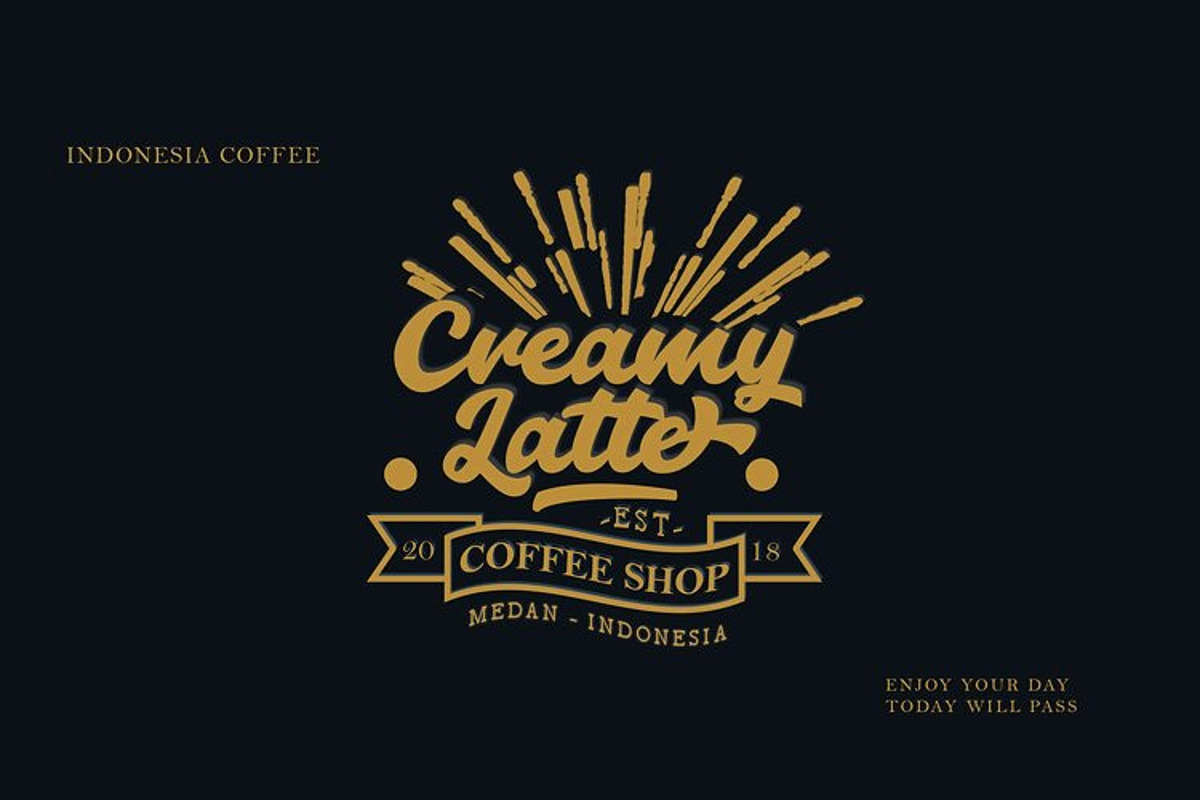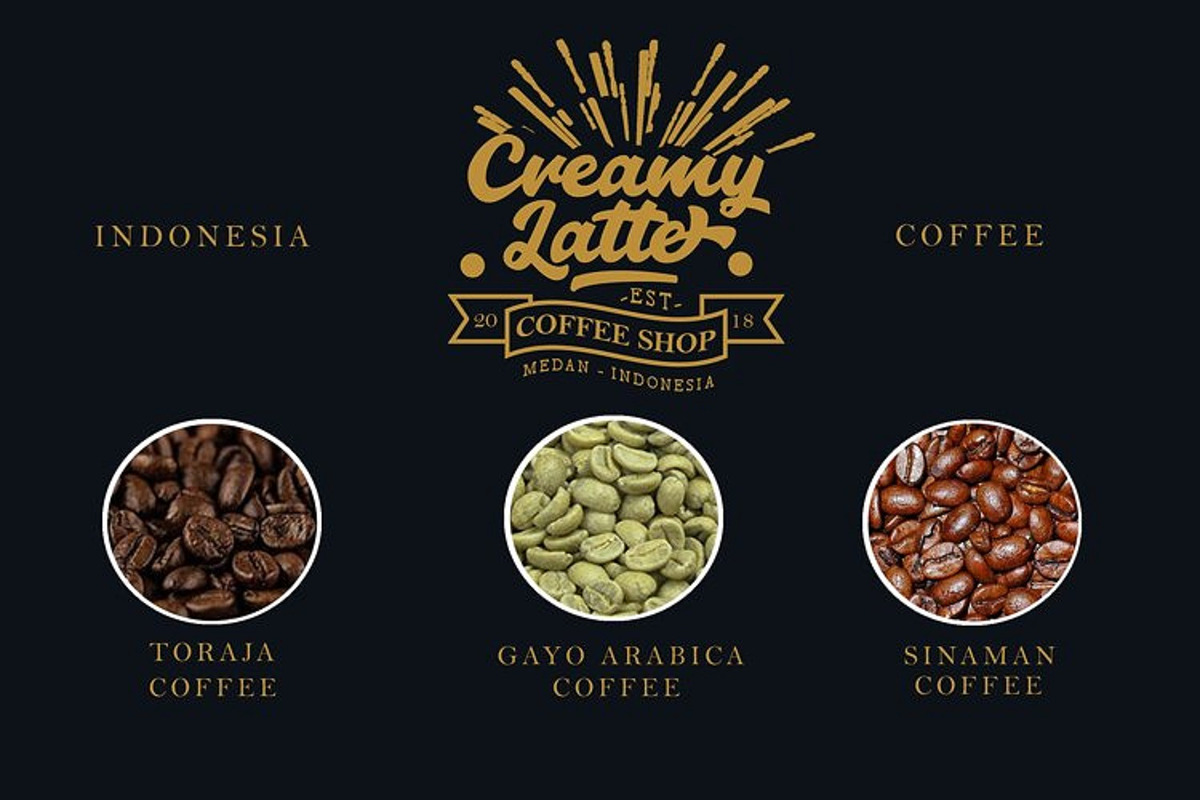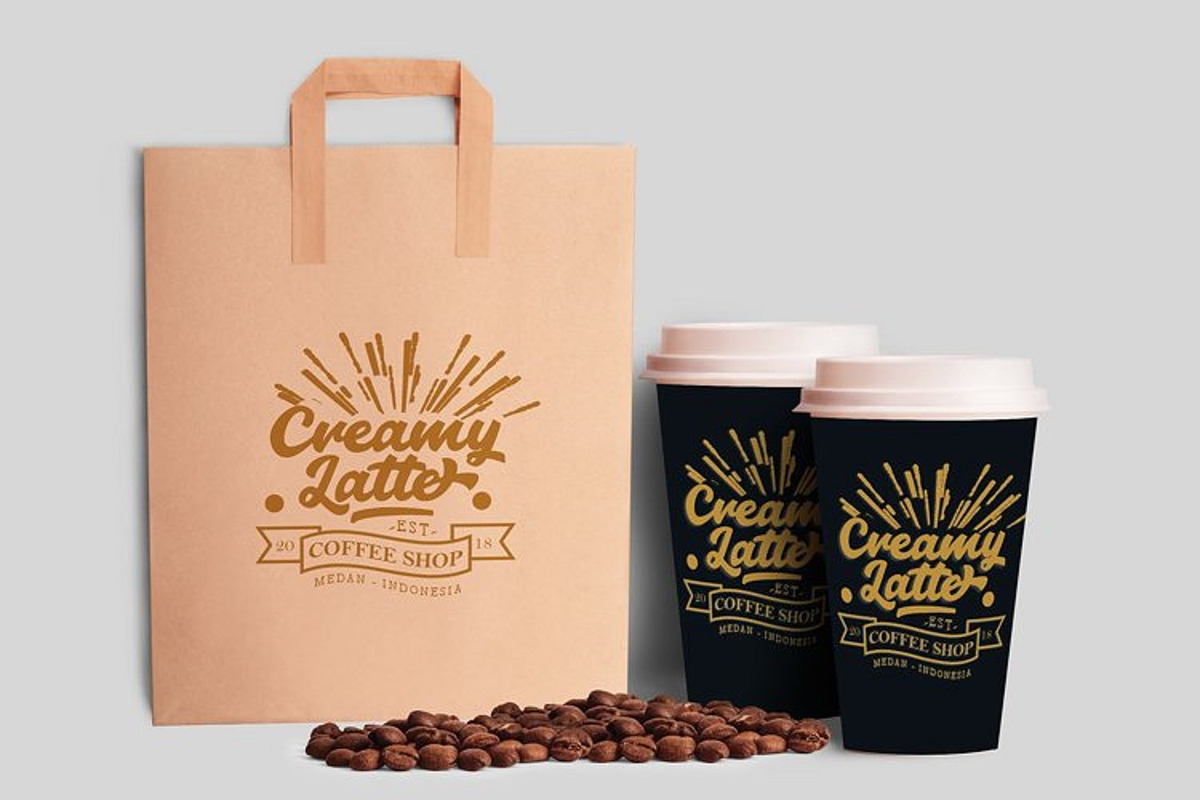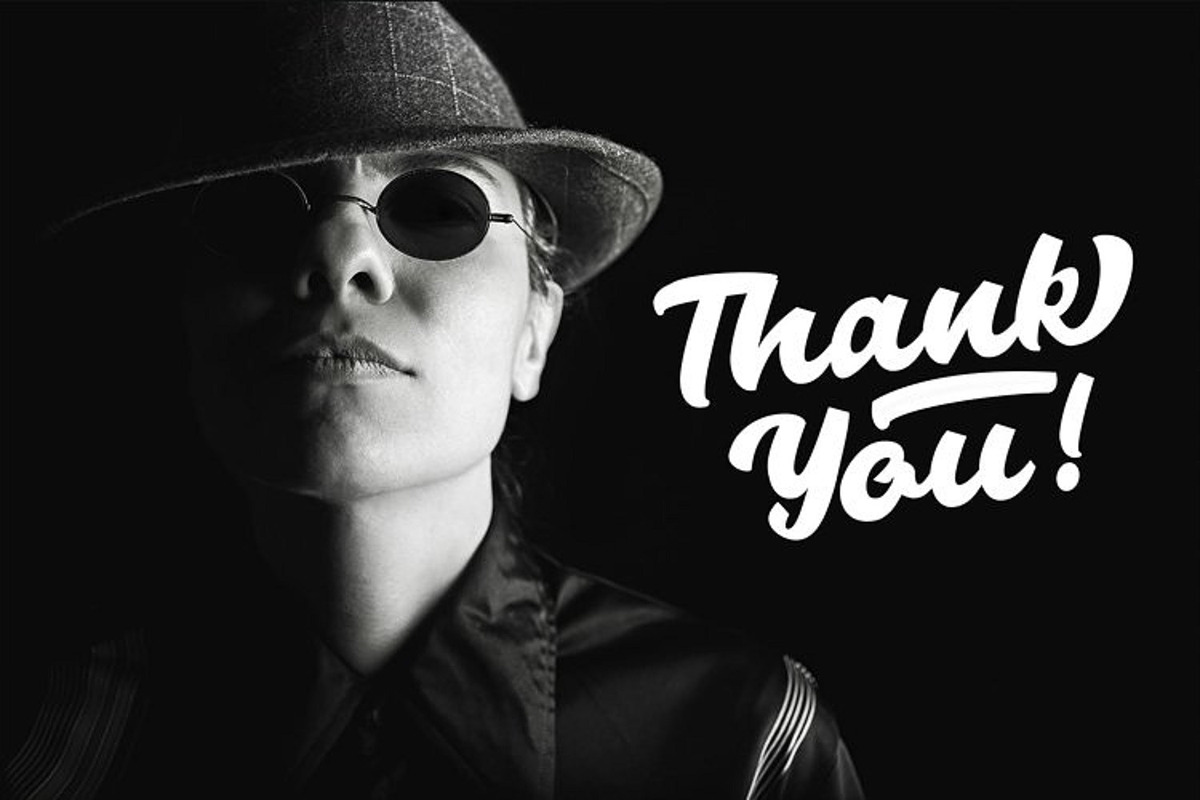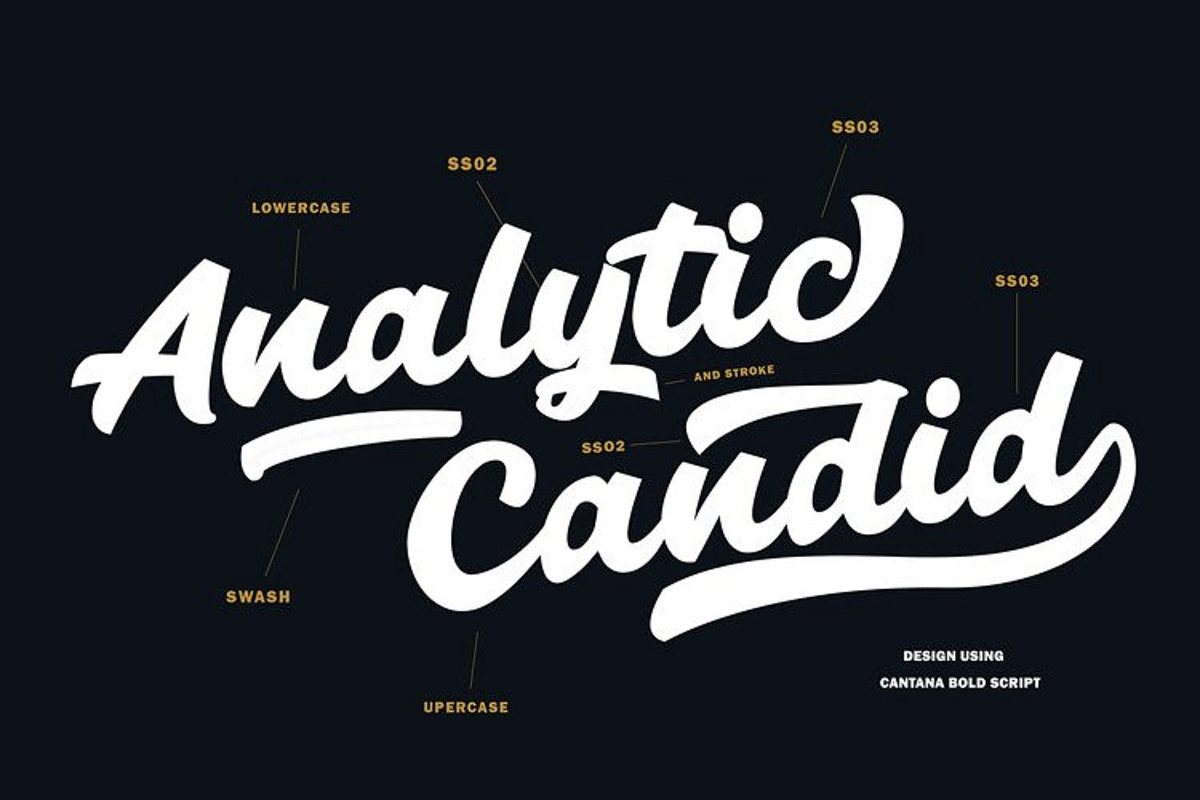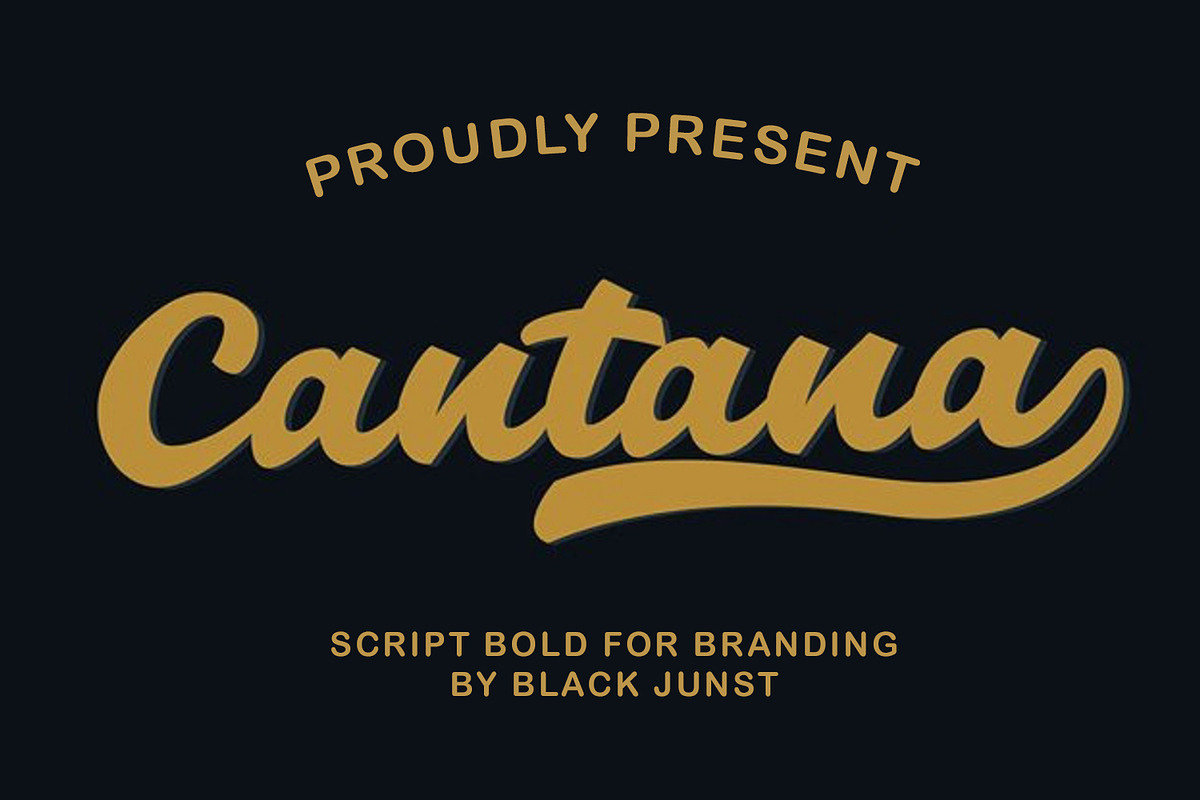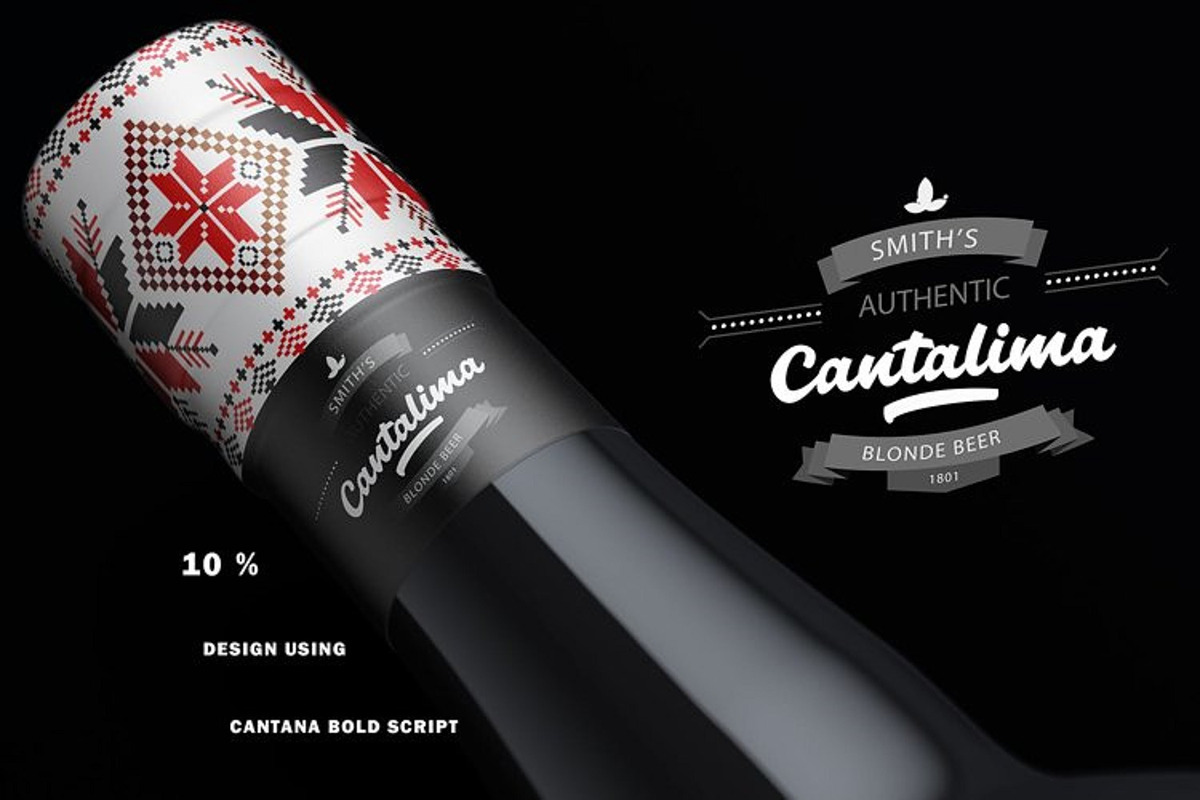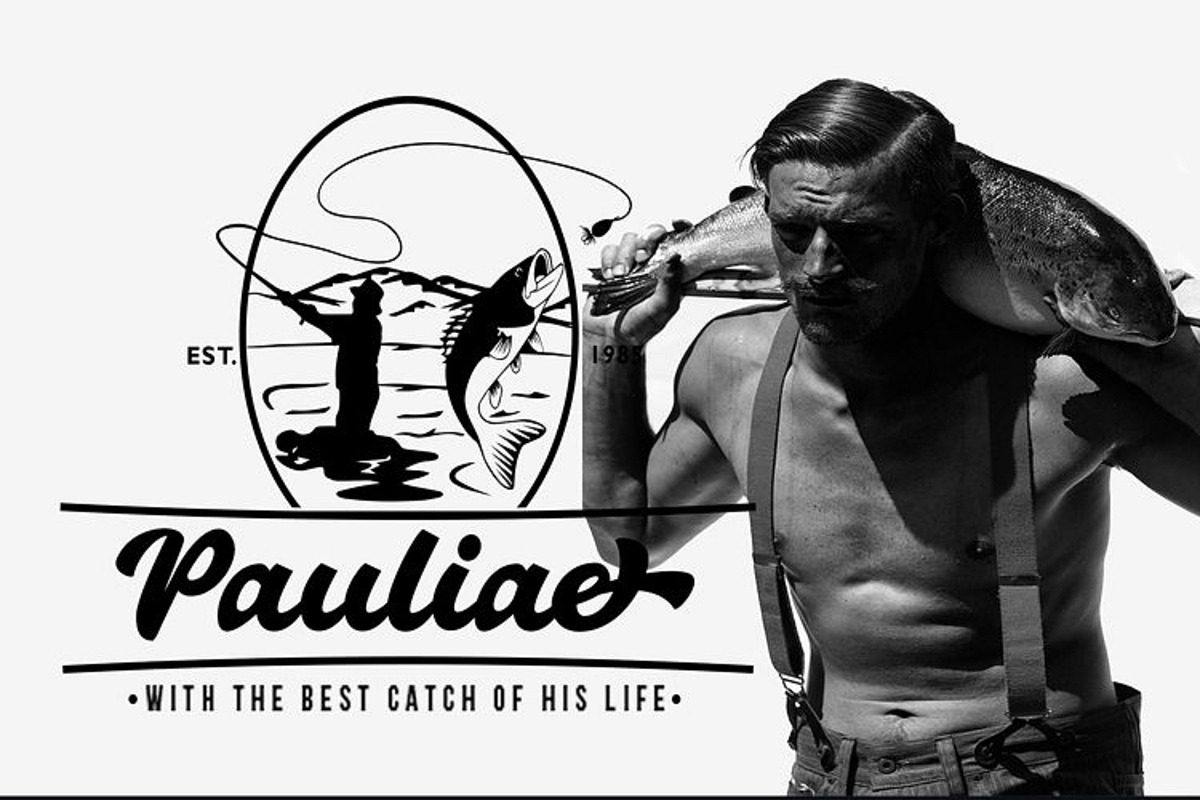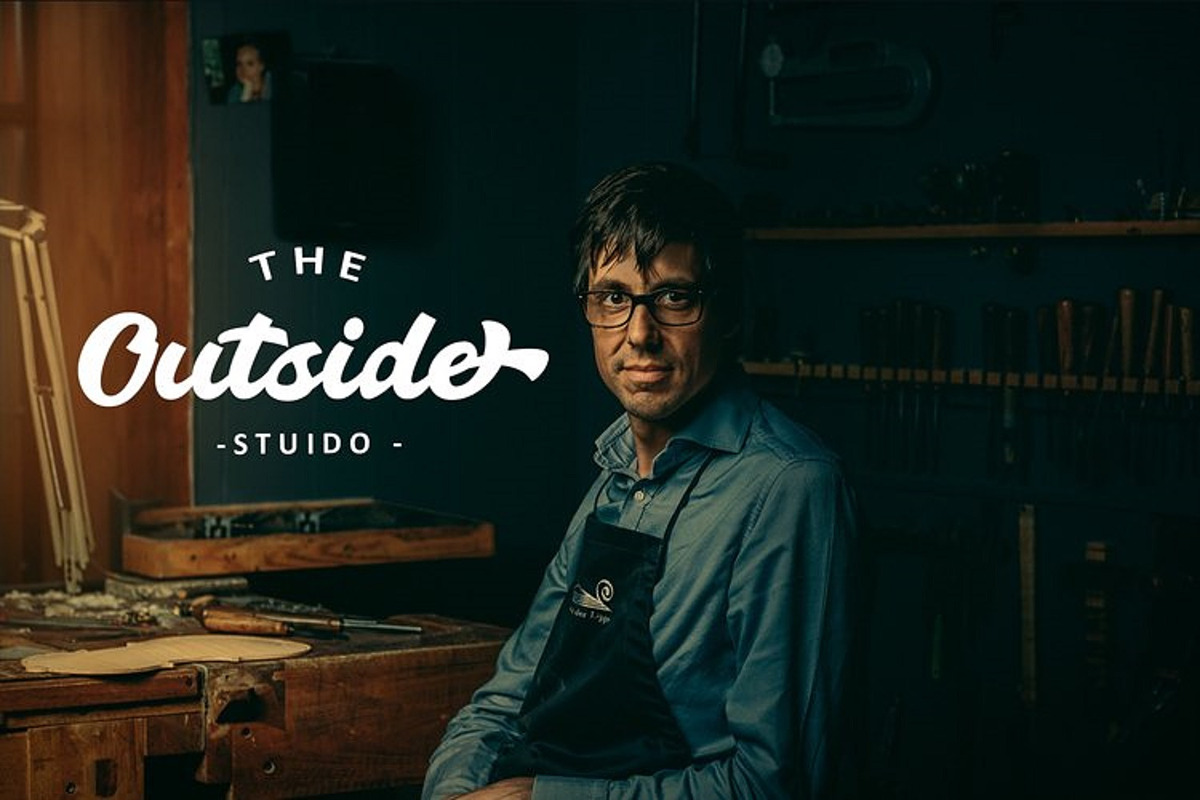
Cantana Script
Cantana – Bold Script for Branding
Cantana is a bold and stylish script font crafted to elevate your branding and design projects. With its smooth strokes, dynamic flow, and confident curves, Cantana adds a modern and professional touch to logos, packaging, headlines, and more.
Whether you're creating a bold brand identity or an eye-catching promotional piece, Cantana is your go-to font for making a strong statement with style.
- Stylistic alternates & ligatures
Great for logos, posters, and product packaging